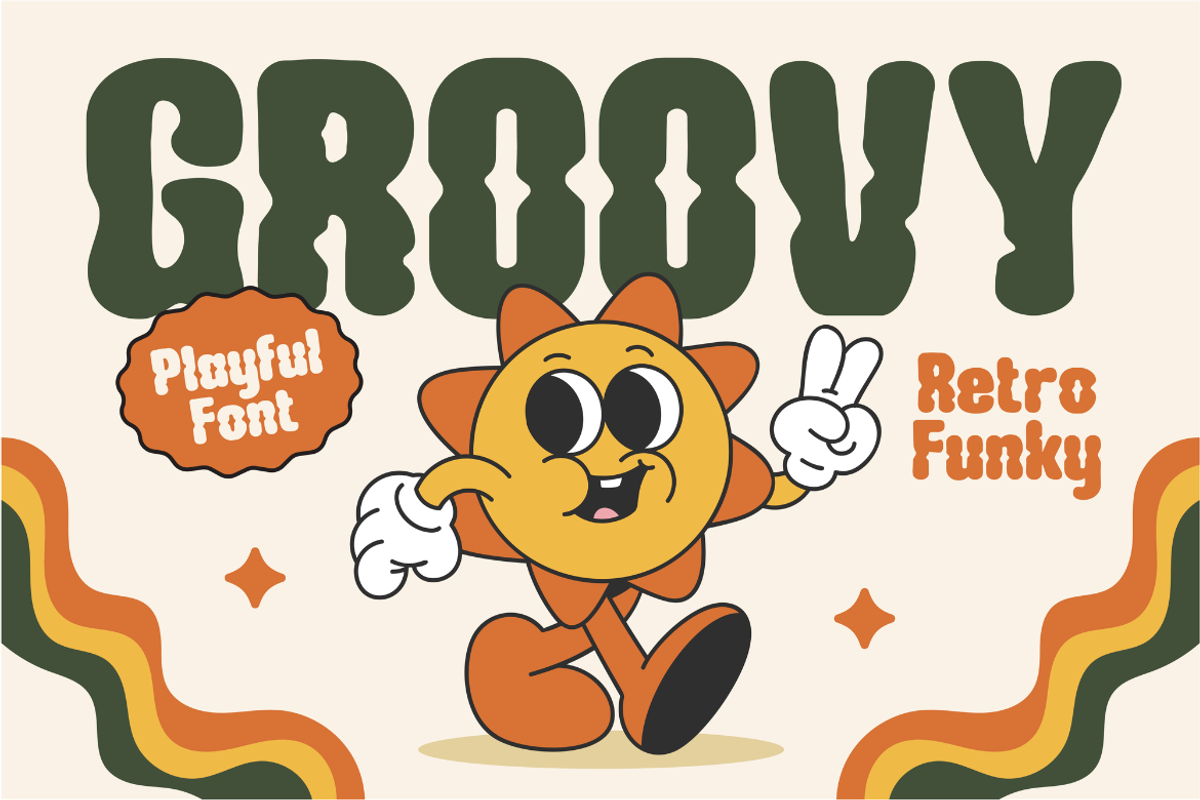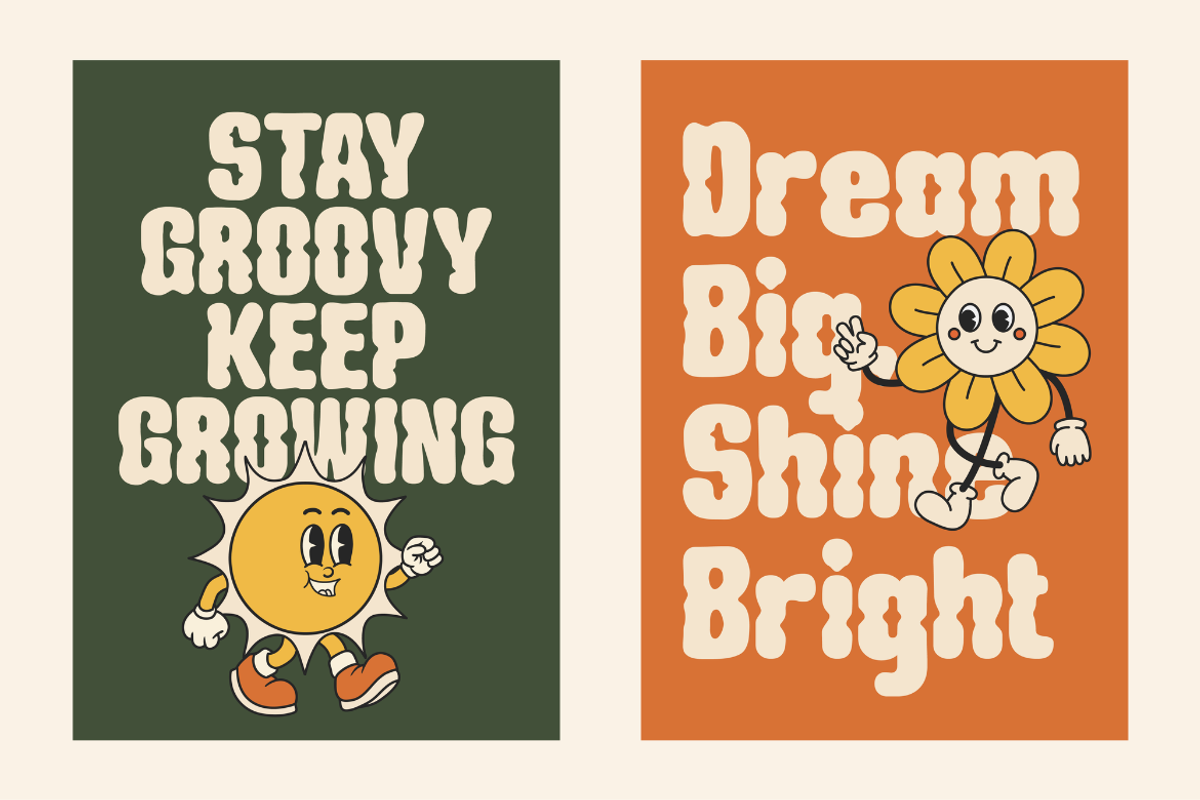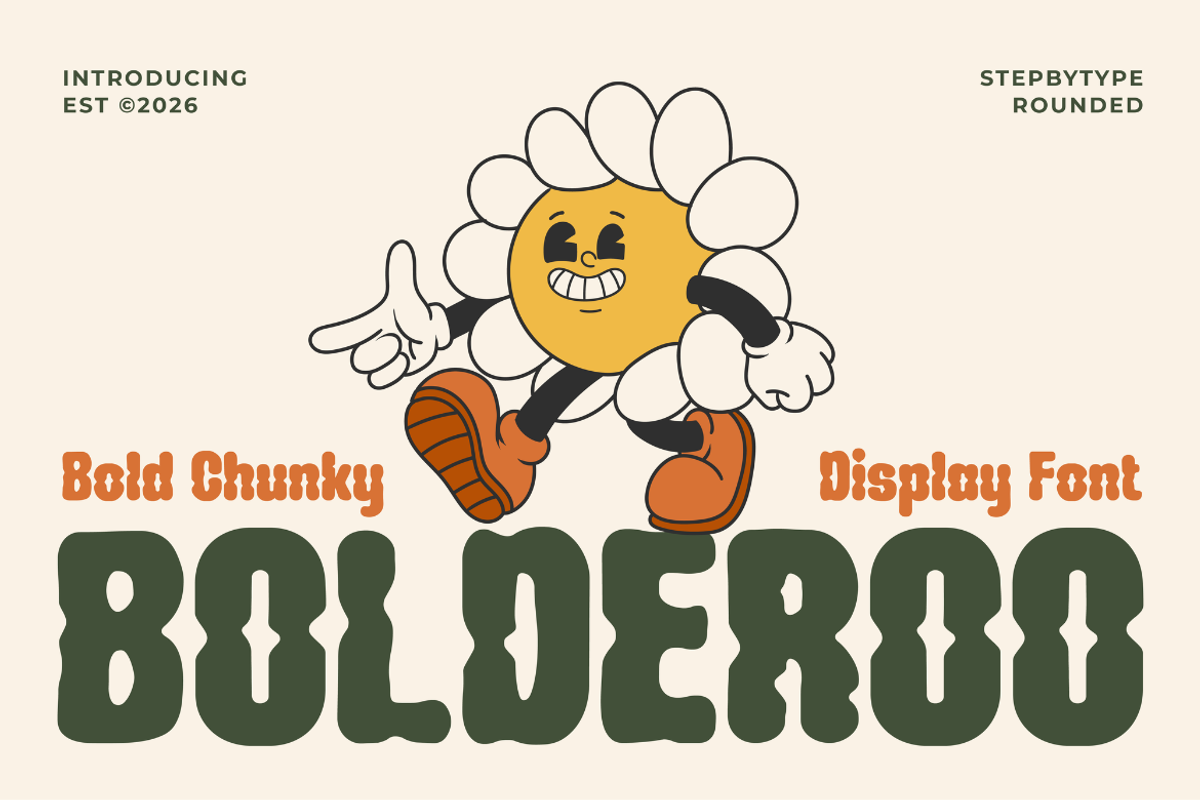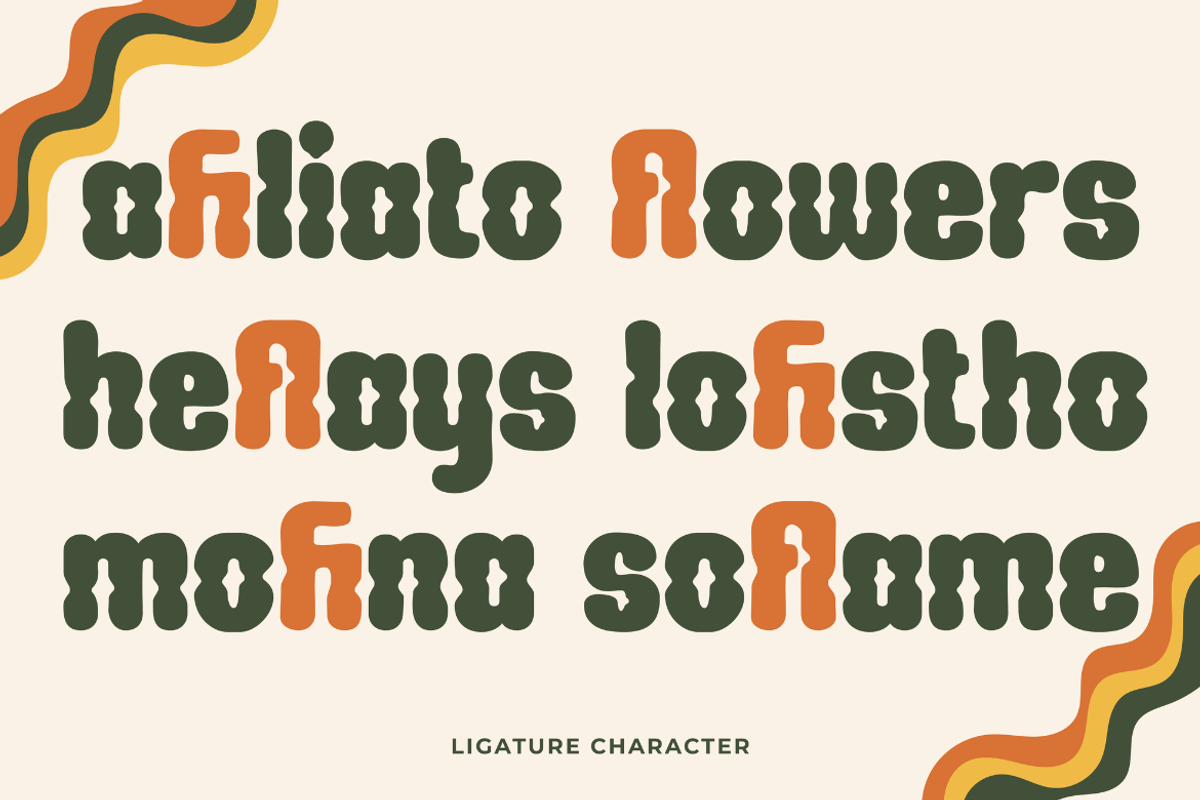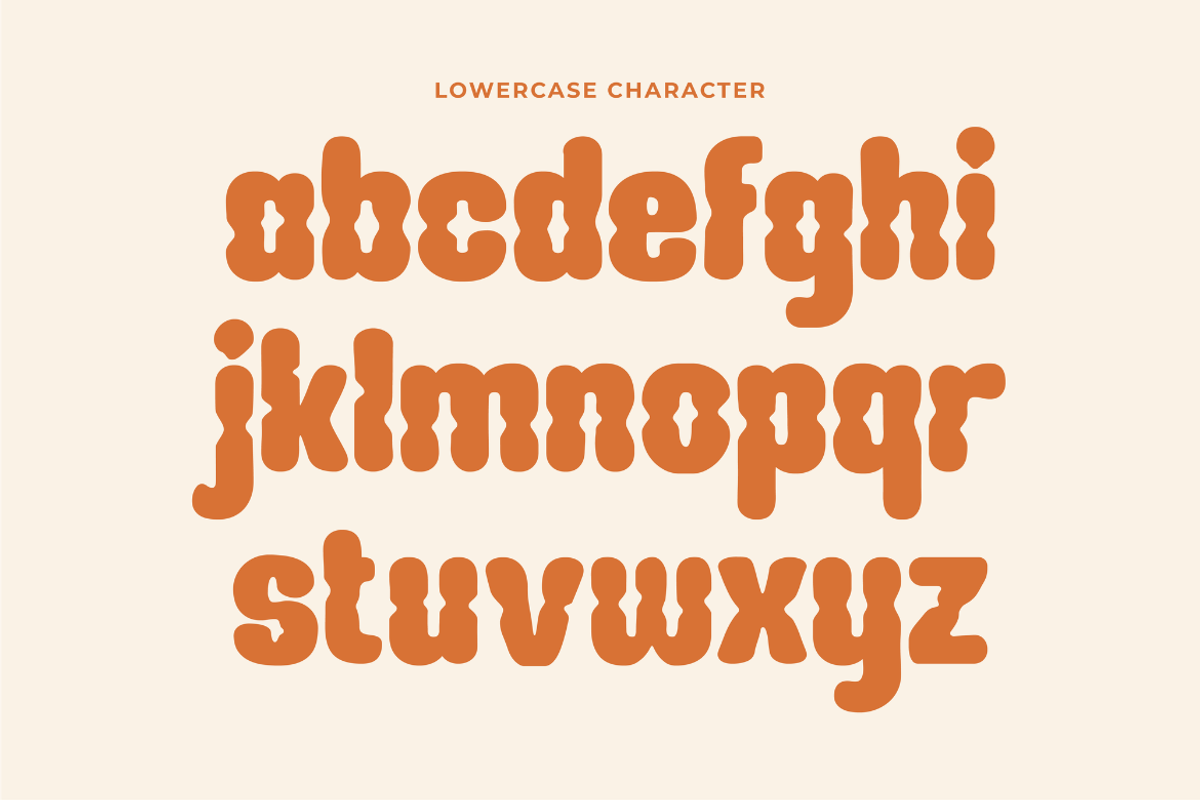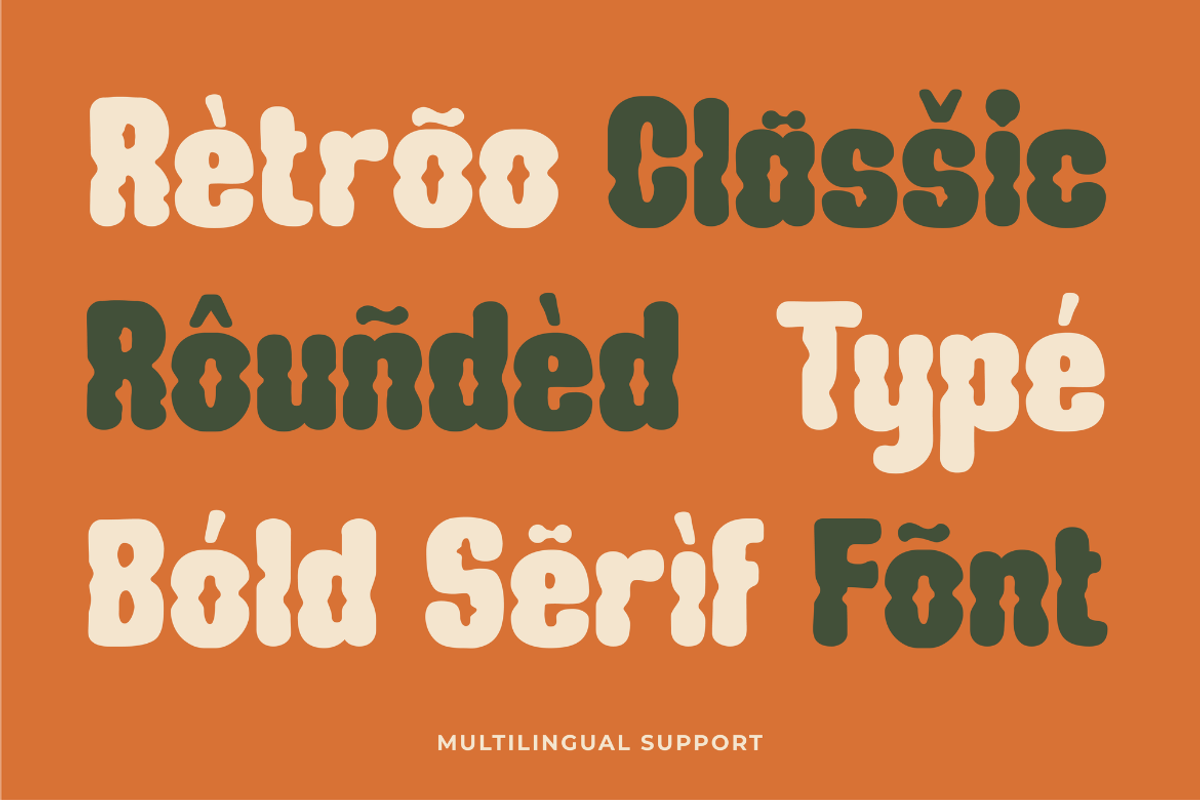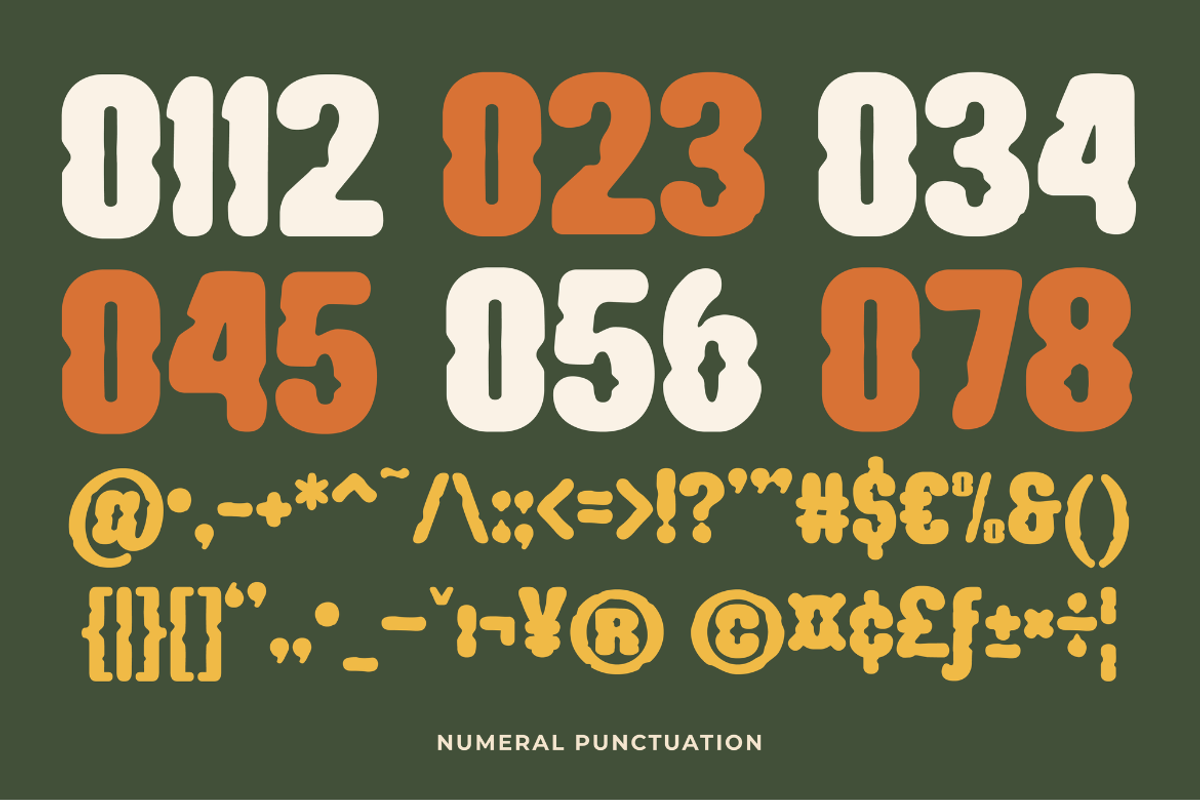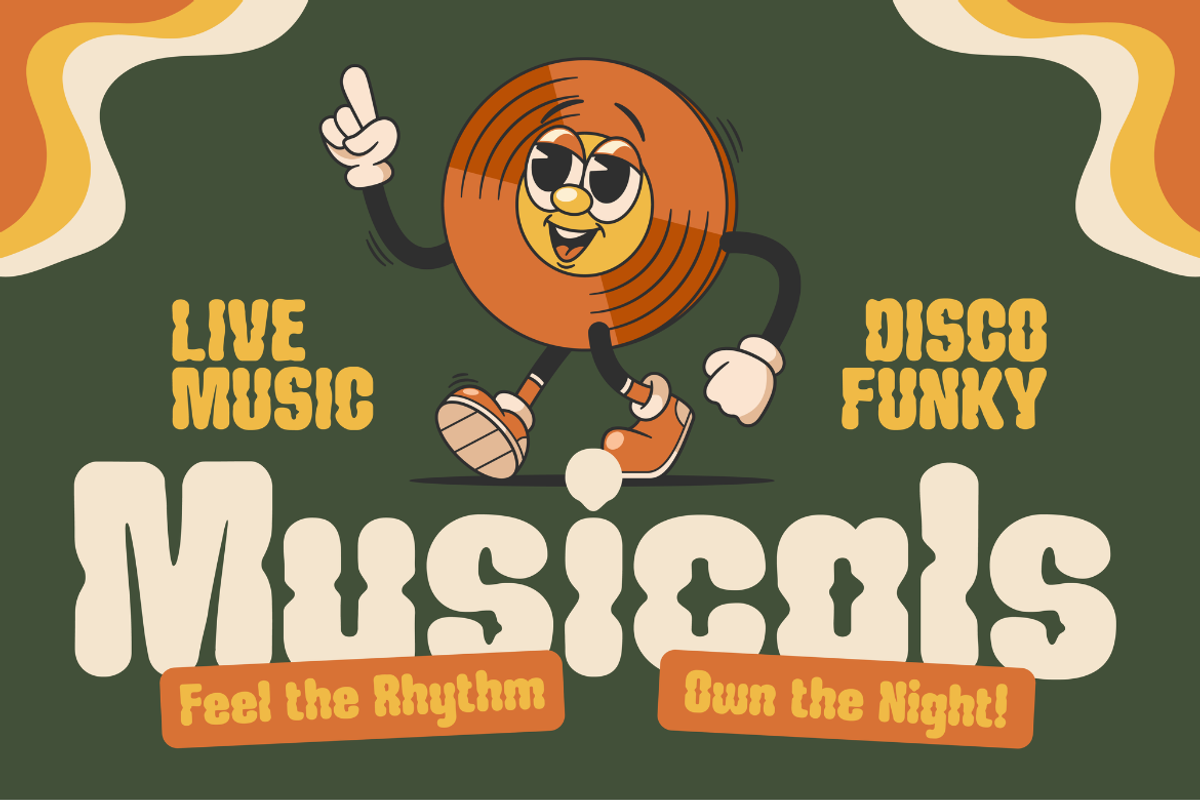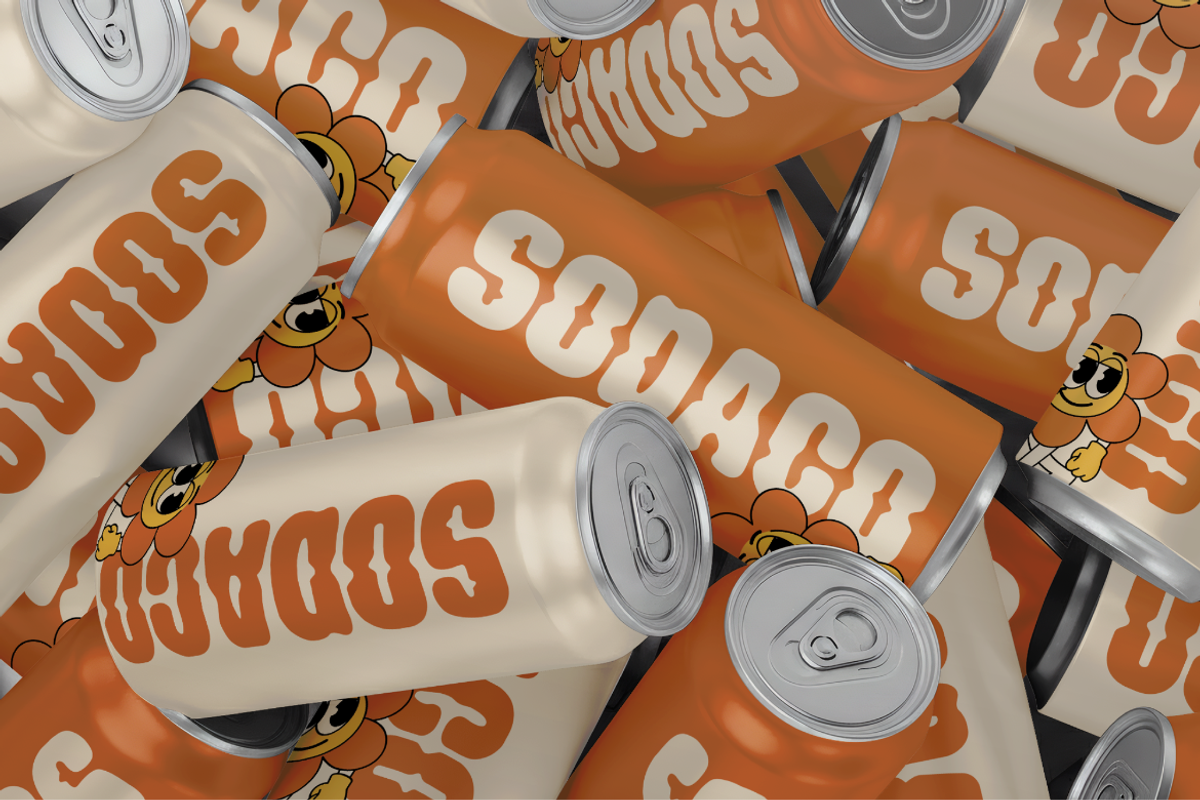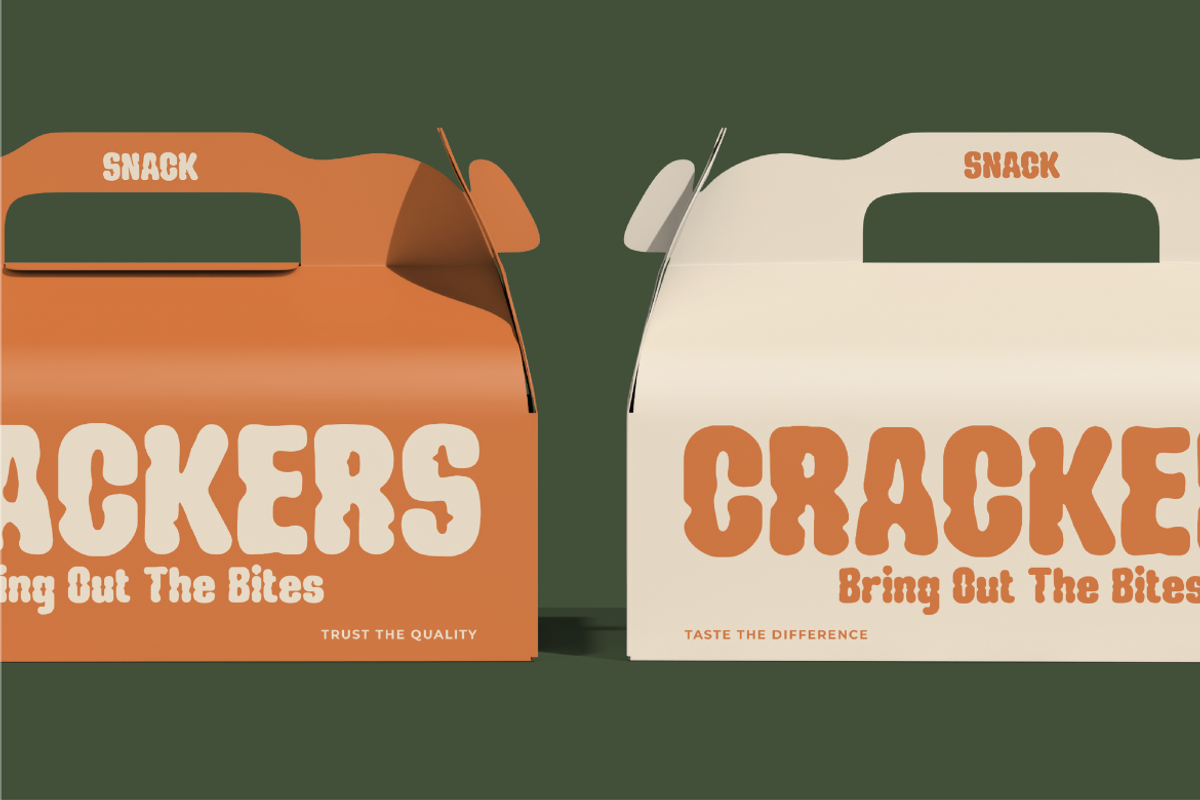
Bolderoo
Bolderoo Rounded is a bold chunky display typeface with a playful, retro-inspired personality. It features thick rounded letterforms, soft edges, and unique organic shapes that create a friendly, cheerful, and expressive appearance. The font combines a vintage cartoon aesthetic with modern branding characteristics, making it highly recognizable and visually engaging.
Its rounded structure gives a warm and approachable feeling, while the heavy weight ensures strong visibility in headlines and promotional designs. Bolderoo Rounded works especially well for designs that require a fun, creative, and memorable style such as packaging, mascots, children's branding, and lifestyle campaigns.